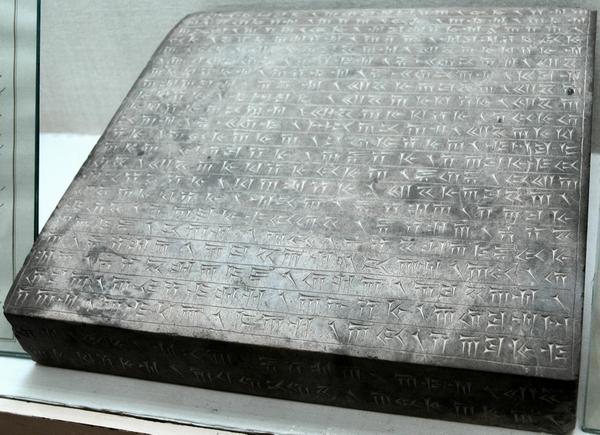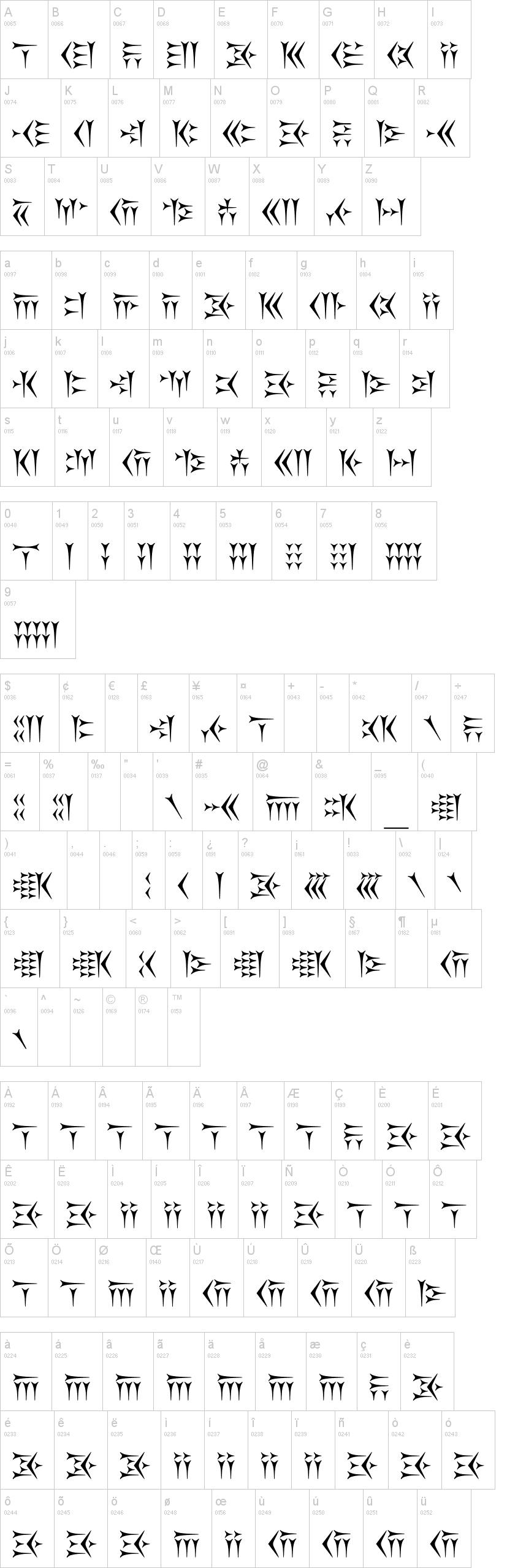
Note of the authorDeveloped with the help of Mr. Keyvan Mahmmoudi, from the University of Teheran, the glyphs are allocated over very convenient keys, but also works for Unicode. This font includes every known glyph for this ancient inscript. This is a free non-commercial font and should not be selled by any means. For more details on how to use the font, permissions or sugestions, contact me: fereydoun23@gmail.com